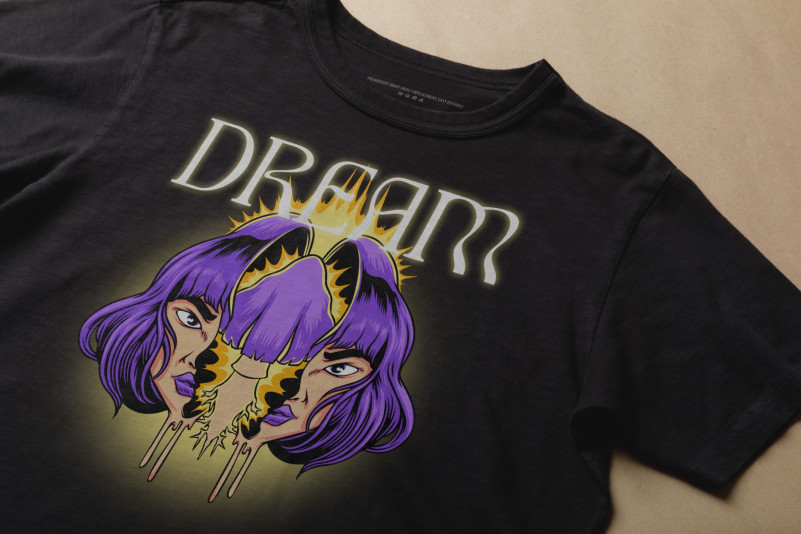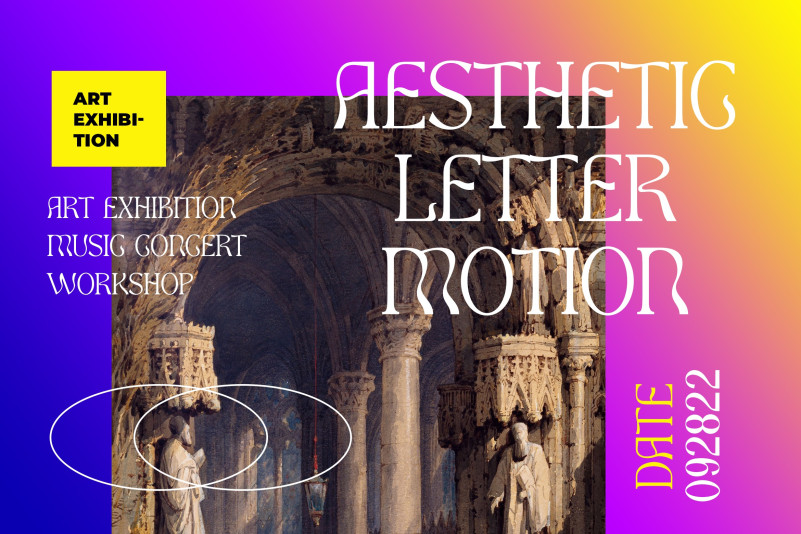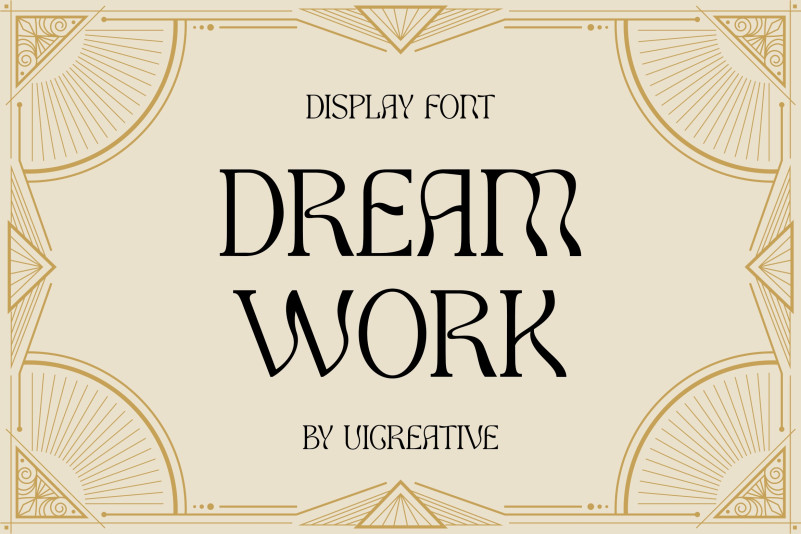
Dream Work Font
Dream Work Font – Fancy Modern vintage serif typeface font that feels beautiful classy, elegant, and modern. This font is perfectly suited for a wide variety of projects, such as signature, stationery, logo, wedding, typography quotes, magazine or book cover, website header, branding, packaging design, and more. Perfect for editorial projects, Logo design, branding, product packaging, magazine headers, or simply as a stylish text overlay to any background image.